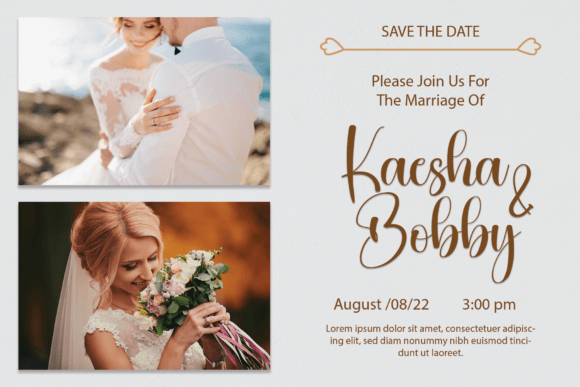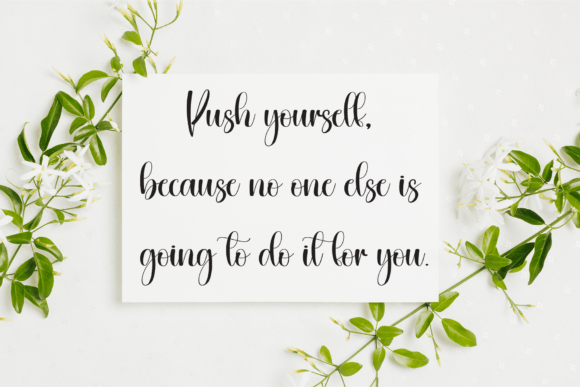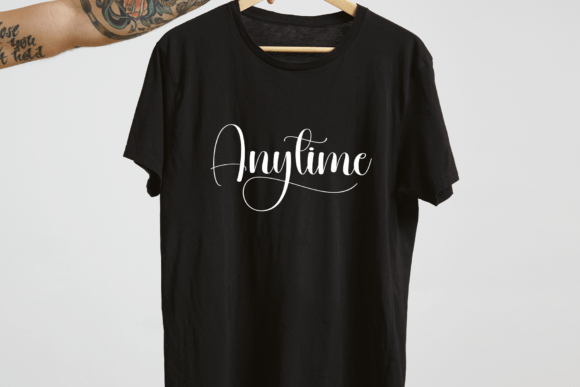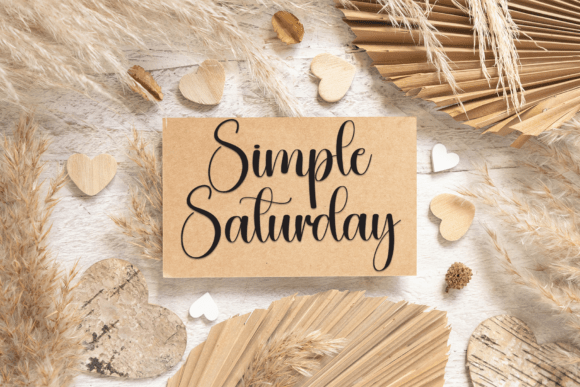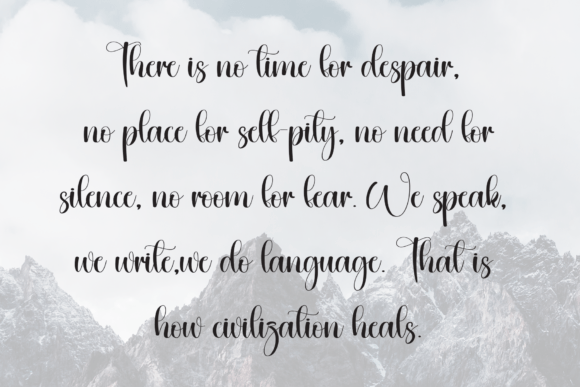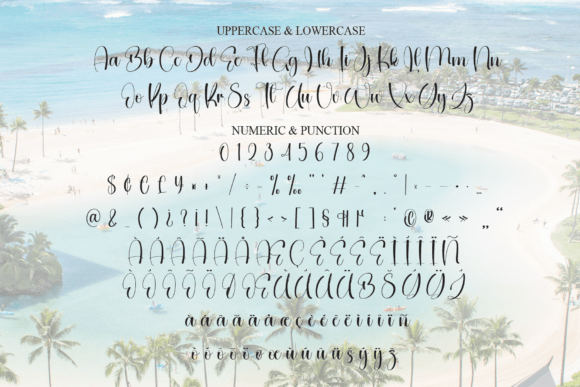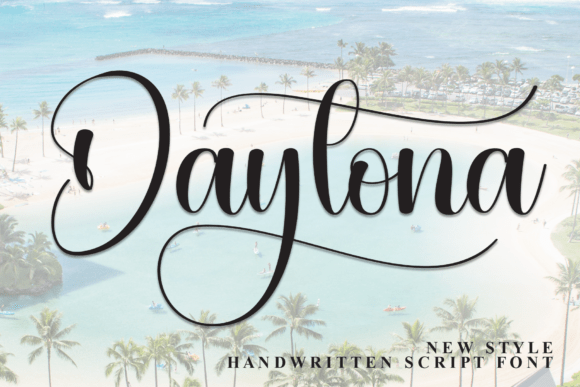
Introducing Daytona Font: The Epitome of Luxurious Handwritten Elegance
In the realm of typography, few fonts manage to evoke the essence of tropical elegance and breezy sophistication as effortlessly as Daytona Font. This exquisite handwritten script font is a masterpiece of modern design, boasting flowing curves and graceful swashes that instantly elevate any project to a realm of stylish refinement. Whether you’re a designer looking to create stunning branding materials, a crafty individual planning a wedding, or a social media influencer aiming to revamp your aesthetic, Daytona Font is the perfect choice for adding a touch of sun-soaked romance to your creations.
The Characteristics of Daytona Font
Daytona Font is not just any ordinary script font. Its unique characteristics set it apart from the rest, making it a versatile and highly sought-after typeface. Here are some of its standout features:
- Flowing Curves: The font’s fluid, connected letters create a sense of movement and harmony, perfect for conveying elegance and sophistication.
- Graceful Swashes: The beautifully designed swashes add a touch of drama and flair to your text, making it ideal for titles, headings, and emphasis.
- Luxurious Feel: Daytona Font exudes a sense of high-end quality, making it perfect for luxury brands, wedding designs, and high-fashion projects.
- Effortless Charm: The font’s breezy, tropical vibe adds a touch of effortless charm to any project, making it perfect for lifestyle designs, social media graphics, and more.
Daytona Font’s versatility knows no bounds. Its unique blend of elegance and playfulness makes it suitable for a wide range of projects, including:
- Branding: Create stunning logos, business cards, and letterheads that exude luxury and sophistication.
- Wedding Invitations: Add a touch of romance and elegance to your wedding stationery, invitations, and decorations.
- Social Media Graphics: Elevate your social media presence with stylish graphics, quotes, and posts that showcase your personality.
- Lifestyle Designs: Create beautiful lifestyle designs, such as posters, flyers, and brochures, that capture the essence of tropical elegance.
Why Choose Daytona Font?
With so many fonts available, why choose Daytona Font? Here are just a few reasons why designers and crafters alike fall in love with this exquisite typeface:
- Unique and Exclusive: Daytona Font’s distinctive design ensures that your projects stand out from the crowd.
- Elegant and Sophisticated: The font’s luxurious feel and flowing curves add a touch of elegance to any project.
In conclusion, Daytona Font is a luxurious handwritten script font that embodies the essence of tropical elegance and breezy sophistication. Its flowing curves, graceful swashes, and effortless charm make it perfect for a variety of projects, from branding and wedding invitations to social media graphics and lifestyle designs. With its unique characteristics, versatility, and high-quality design, Daytona Font is an excellent choice for designers and crafters looking to add a touch of sun-soaked romance to their creations.